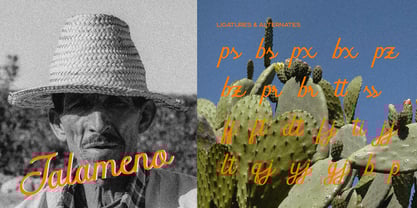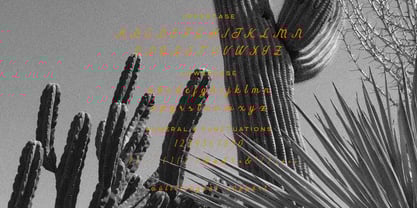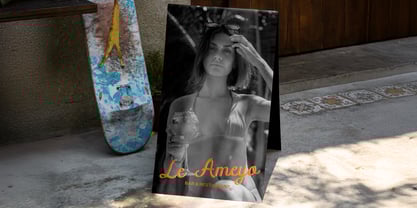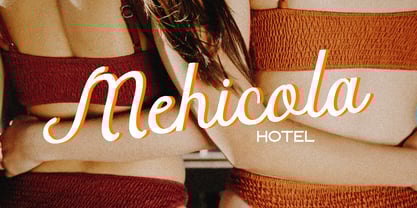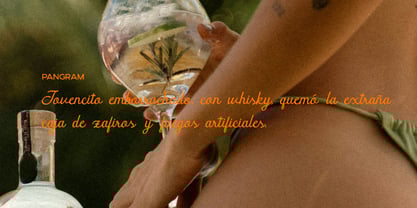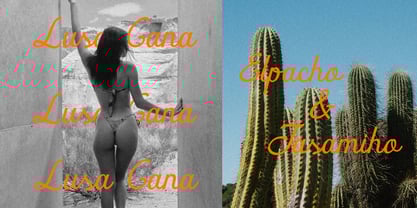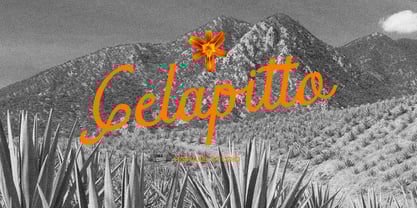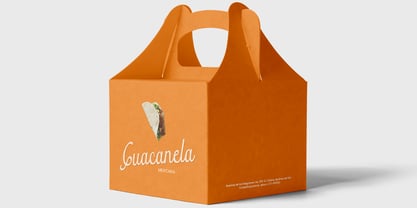
Gelapitto
von Hishand Studio
Die Schriftfamilie Gelapitto wurde von Putu Dody Permana entworfen und von Hishand Studio veröffentlicht. Gelapitto enthält 1 Stile. Mehr über diese Familie
Gelapitto is a charming handwritten script font that carries a warm, natural flow in every stroke. Its smooth curves and gentle loops create an inviting rhythm that feels expressive, and effortlessly stylish. The letterforms balance elegance and playfulness, giving the font a distinctive personality without becoming overwhelming. Gelapitto has a soft, handcrafted touch that makes each word feel thoughtfully written rather than mechanically produced. Designed with attention to detail, the font features consistent stroke contrast and graceful connections, allowing it to remain highly readable even with its decorative flair. It excels in larger sizes, where its fluid movement and unique character can truly stand out. Perfect for branding, packaging, editorial headlines, or creative projects that need a touch of artistry, Gelapitto brings warmth and individuality to any design. Its character feels both modern and timeless, making it a versatile choice for designers who want their typography to feel expressive and crafted. Complete with - uppercase - lowercase - ligatures - alternates - multilingual support
Designer: Putu Dody Permana
Foundry: Hishand Studio